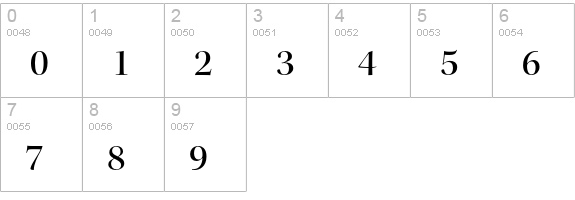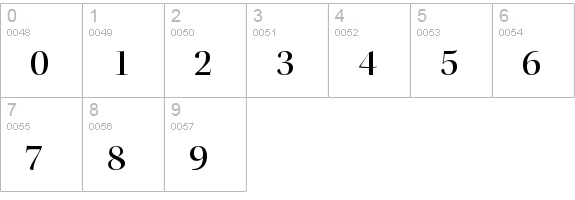
Kepler Std Medium Display Font Details
Kepler Std Medium Display is a balanced, medium-weight variant in the Kepler typeface family \xE2\x80\x94 well suited to sub-headlines, navigation, and balanced editorial work.
The Kepler Std Medium Display font, with its perfect balance of elegance and readability, is a true masterpiece in the world of typography. Its clean and clear letterforms exude a sense of sophistication, making it suitable for a wide range of design projects. This font's medium weight gives it a confident and authoritative presence, making it ideal for headlines, titles, and other attention-grabbing elements. Its generous x-height and open counters ensure excellent legibility even at smaller sizes, making it a versatile choice for both print and digital mediums. The Kepler Std Medium Display font's timeless design is sure to make a lasting impression on any audience. Its sleek and refined curves, combined with its harmonious proportions, create a sense of harmony and elegance that will elevate any design project to new heights. What sets this font apart is the fact that it is freely available for download at FontsMarket.com. This means that designers and creatives alike can access this stunning typeface without any cost. With its availability, the Kepler Std Medium Display font becomes an invaluable resource for anyone looking to elevate their design work without breaking the bank. In conclusion, the Kepler Std Medium Display font is a true gem in the typographic landscape. Its combination of elegance, readability, and the fact that it is freely available for download at FontsMarket.com, make it an essential addition to any designer's toolkit. Whether you're working on a branding project, a magazine layout, or a website design, this font is sure to bring a touch of sophistication and professionalism to your work.